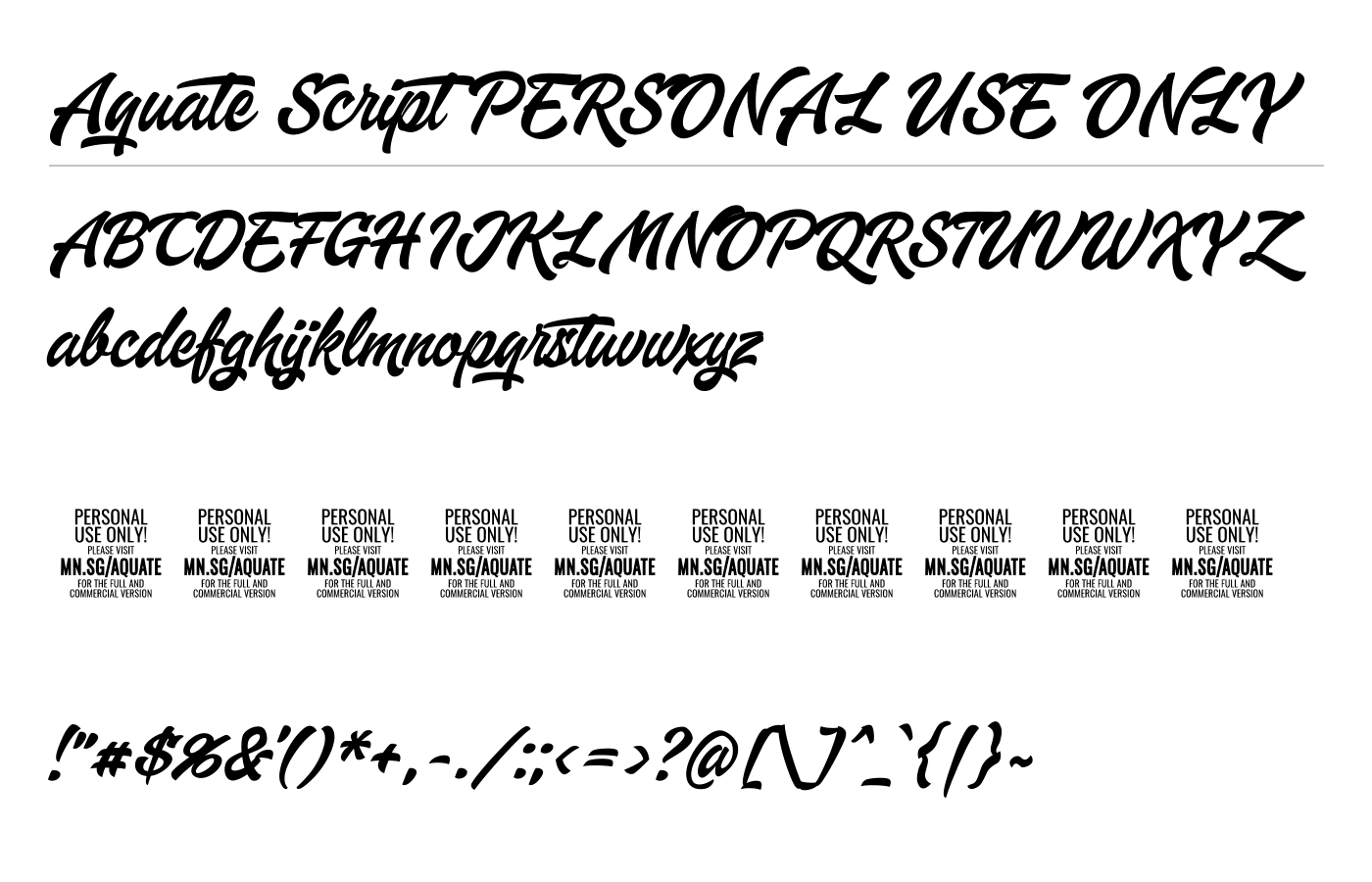
Aquate Script is a lively and bold script font that combines smooth, flowing strokes with a confident, handwritten style. Its medium weight and slightly condensed letterforms create a dynamic yet readable appearance, making it perfect for adding a personal, energetic touch to invitations, branding, and headlines. This font works beautifully in creative and casual designs that want to feel approachable and stylish.
Aquate Script PERSONAL USE ONLY Font
About Aquate Script PERSONAL USE ONLY Font
| Font family | Aquate Script PERSONAL USE ONLY Font |